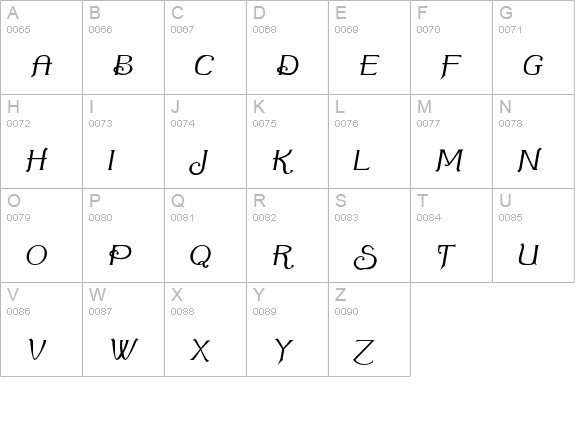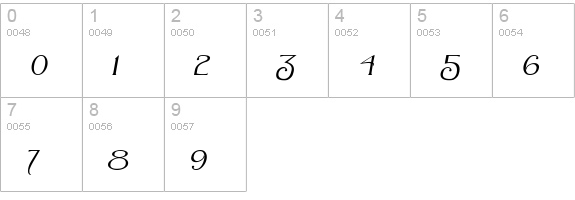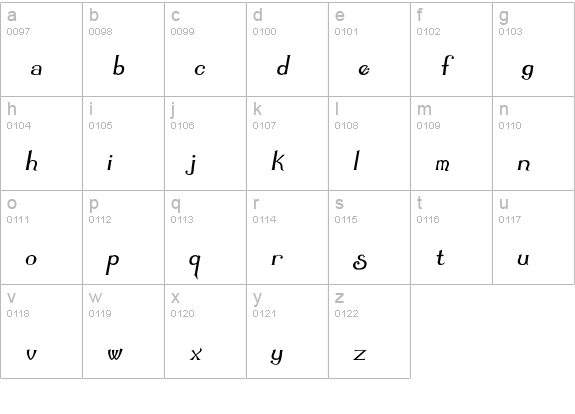
Summertime Oblique Font Details
Summertime Oblique is a distinctive, italic variant in the Summertime typeface family \xE2\x80\x94 well suited to design and typography projects.
Summertime Oblique font embodies the carefree spirit of summer with its playful and whimsical design. Its slanted and flowing characters capture the essence of lazy days and warm evenings spent under the sun. This font is perfect for adding a touch of fun and relaxation to your projects, whether you're creating invitations, greeting cards, or social media graphics. What makes Summertime Oblique font even more appealing is that it is freely available to download at FontsMarket.com. You can easily access this delightful font and bring a sense of summer joy to all your creative endeavors. Let Summertime Oblique font transport you to a world of leisure and sunshine, where every design is infused with a sense of freedom and happiness.